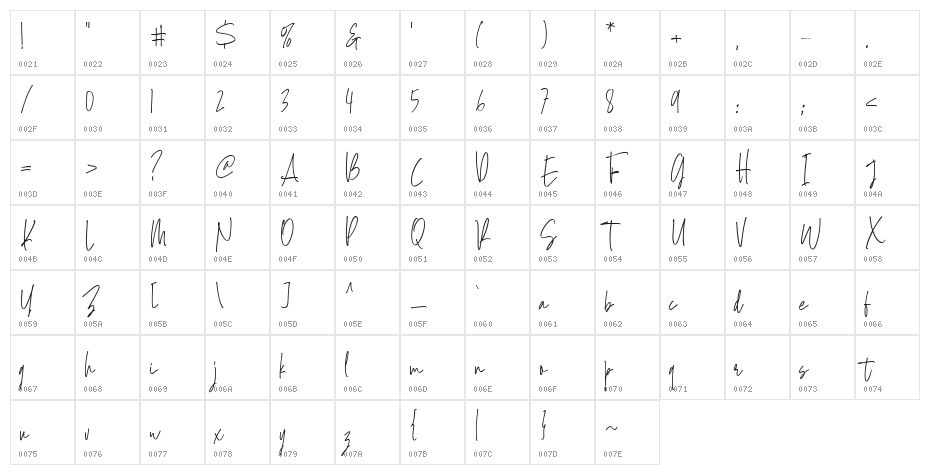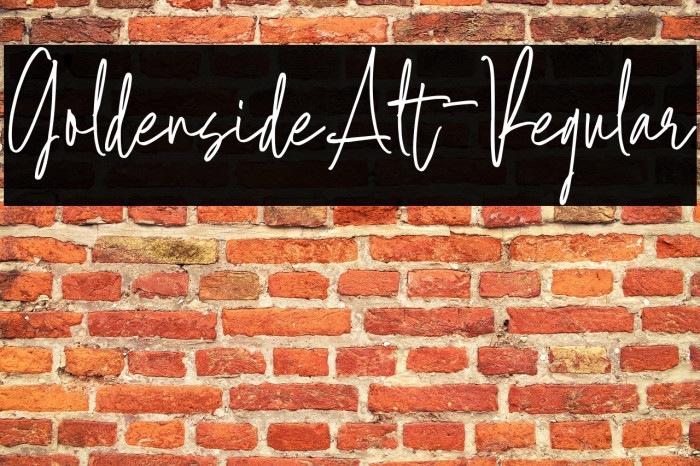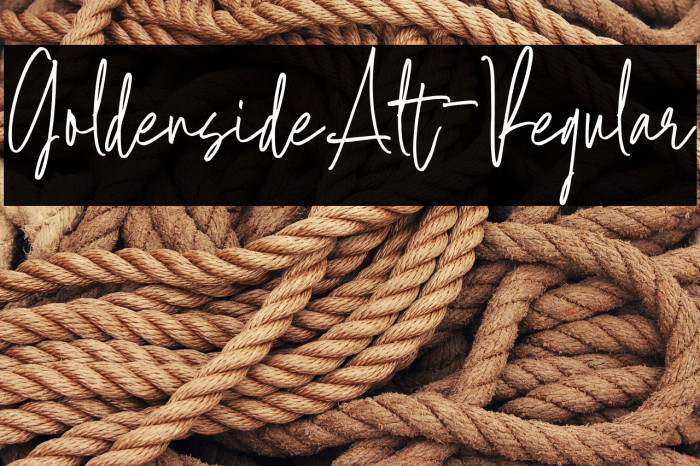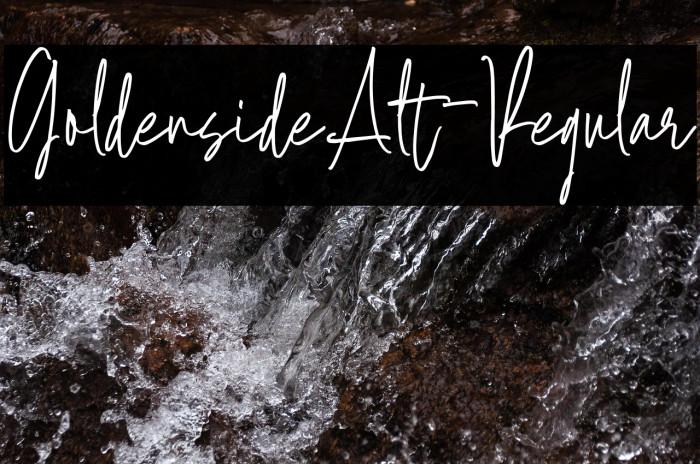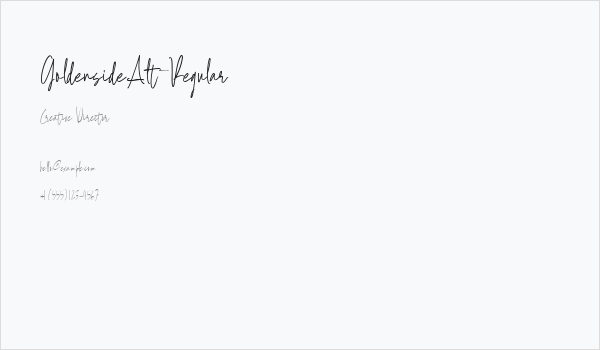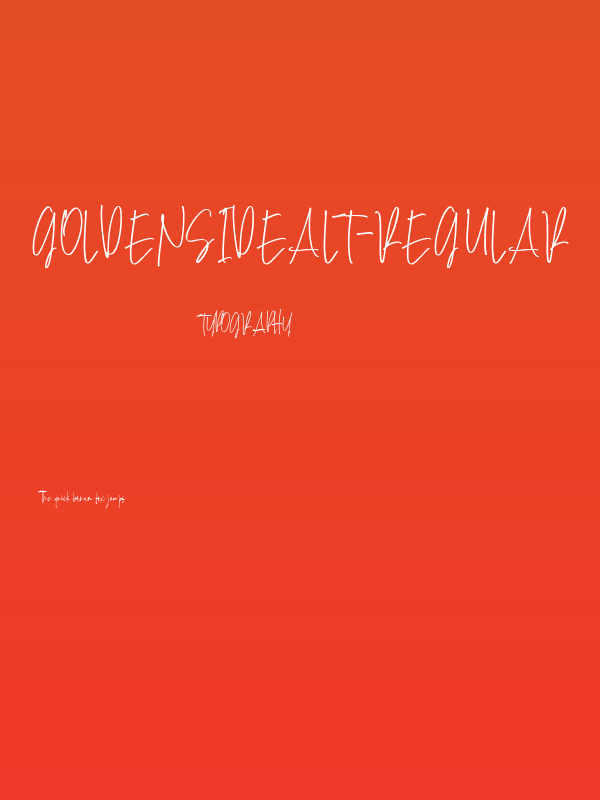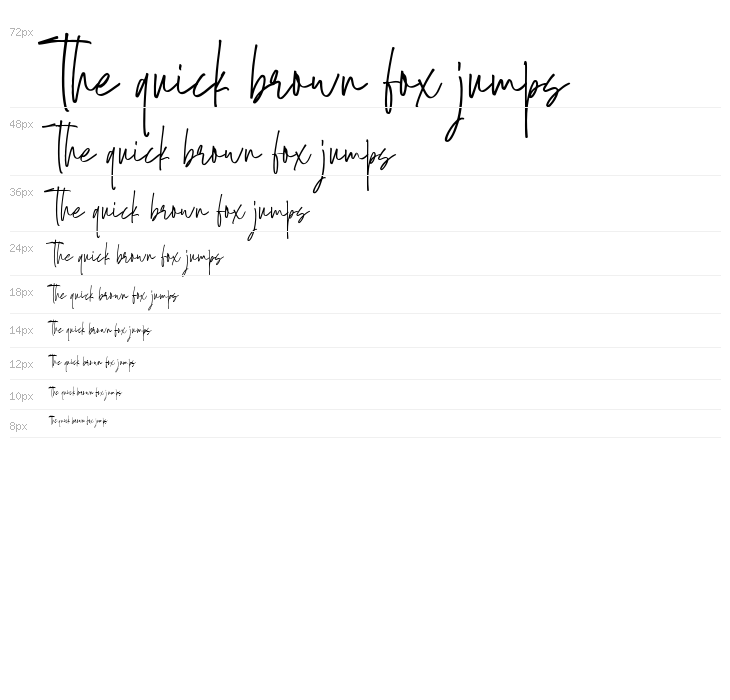
GoldensideAlt-Regular Font
GoldensideAlt-Regular Description
This font features a dynamic and energetic handwritten style, characterized by its fluid and spontaneous strokes. The letters are slightly slanted, giving a sense of movement and personality. The uppercase letters are bold and expressive, while the lowercase letters maintain a more consistent flow. The numbers and special characters follow the same lively aesthetic, making the font versatile for various creative applications. Its informal and artistic appearance makes it suitable for projects that require a personal touch.
| Proposed Projects | Ideal for greeting cards, invitations, personal branding, and creative posters. |